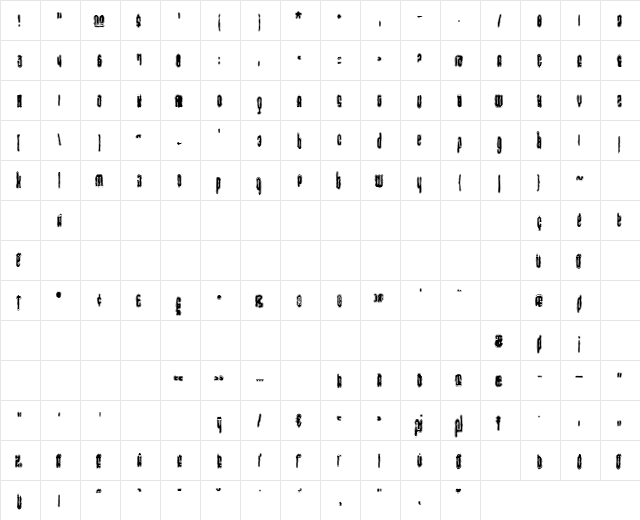
Saturate Inline
| Foundry | theTYPEfetish/Michael Wallner |
| Designer | Michael Wallner |
Design Context for Saturate Typeface
Saturate brings ornamental detail and strong personality to headlines and identities, where visual impact matters more than quiet functionality.